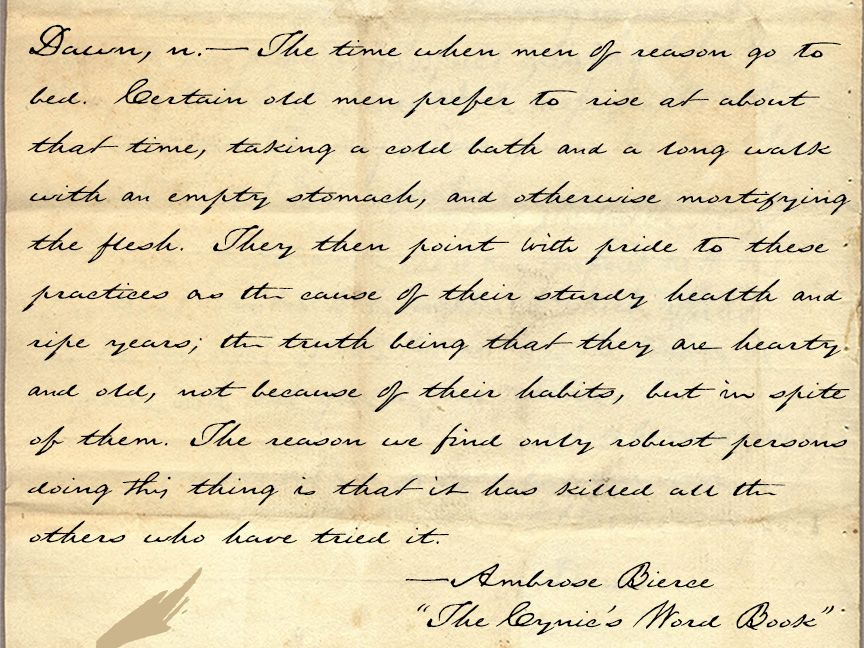
Texas Hero Font
Texas Hero Font comes beneath the category of the modesty fonts and it seems likes scratched font mockup in a font-view. This font under the category of cursive fonts, which is widely used in Adobe.
This typeface is just like crafty girls font that has been given to have its identity in the vital ranks. The whole set includes opentype.Also known as the Marcel font.
Style Of Texas Hero Font Free